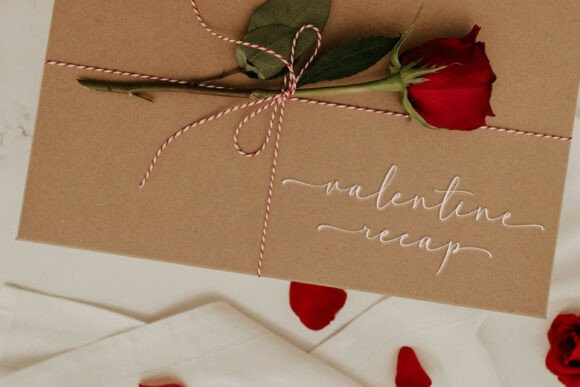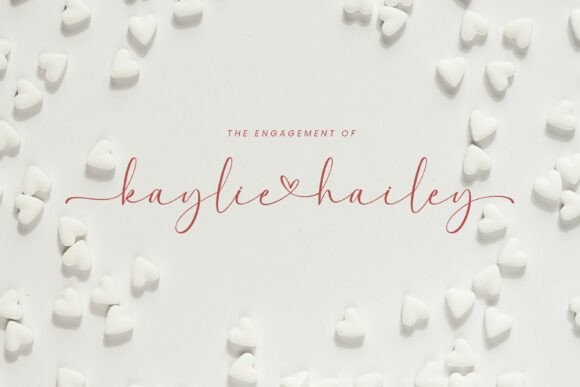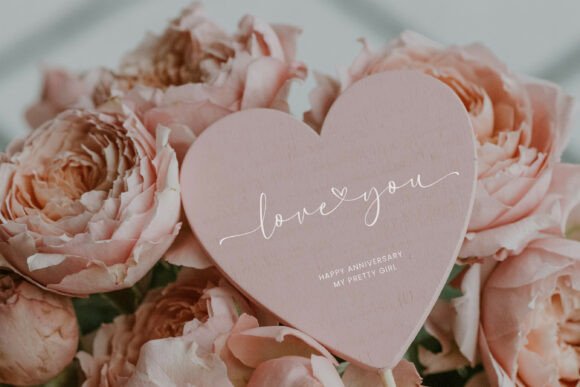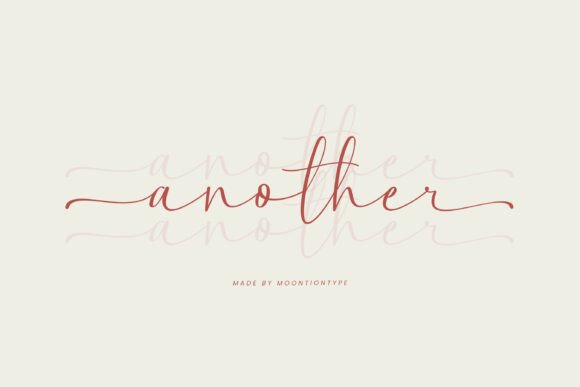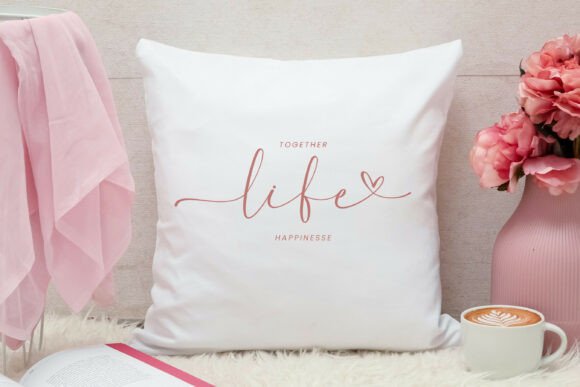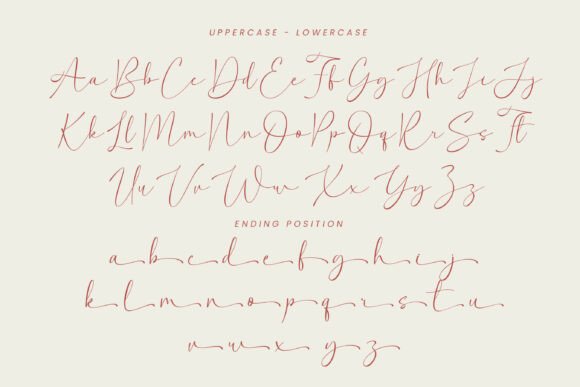
Introduction to Love Mine Font
Love Mine is a romantic handwritten script font designed to capture the beauty of love, elegance, and emotional expression.
Featuring smooth flowing strokes and delicate heart-shaped details, this font brings a warm and charming personality to every design With its natural handwritten style and graceful curves, Love Mine is perfect for creating romantic and feminine designs.